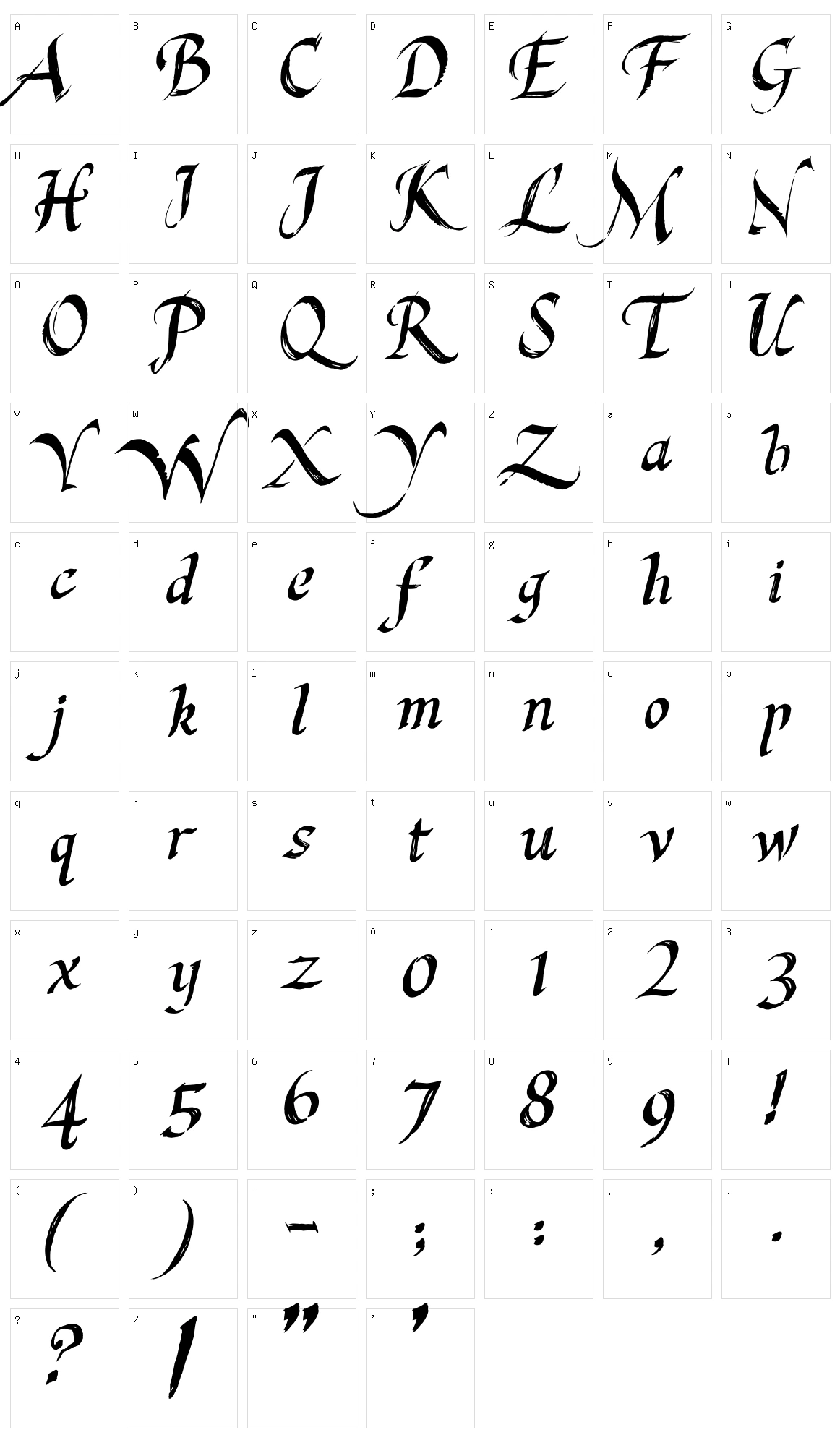
The free font Last King Quest is carefully designed by imagex, showcasing a thoughtful balance of creativity and usability and falls under the Script font style. When you download the ZIP file, it contains only 25.27 KB of font files, making it lightweight and quick to download. Please review the license details below to understand permitted usage and distribution rights. If license information is not available, we recommend using this font for personal projects only or contacting the author directly for commercial usage permissions.